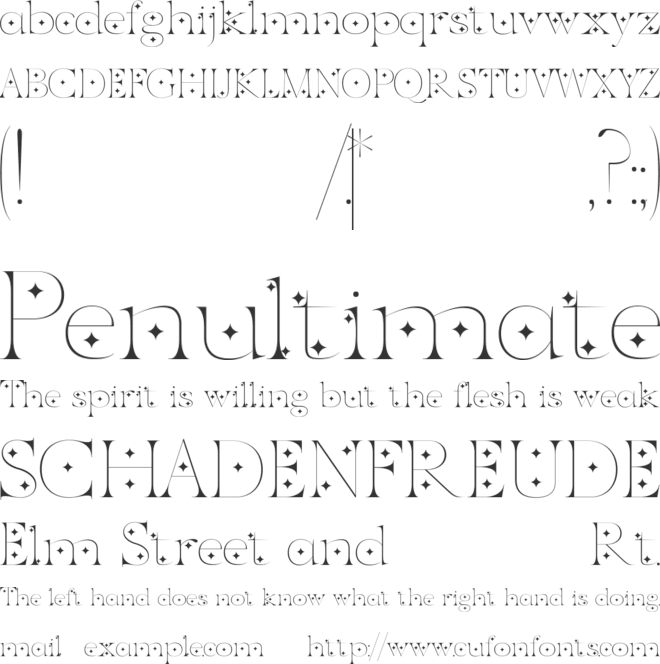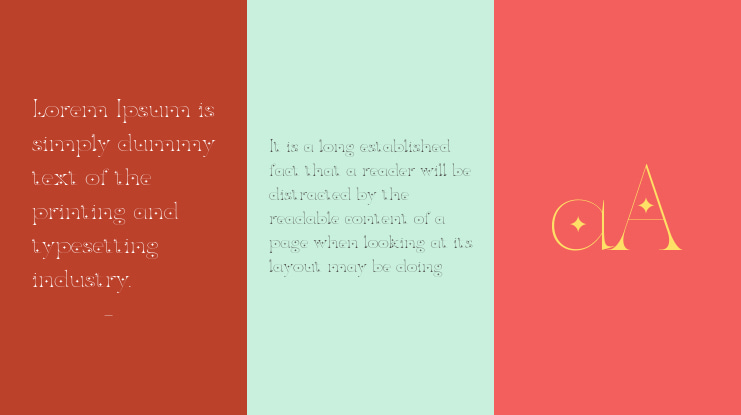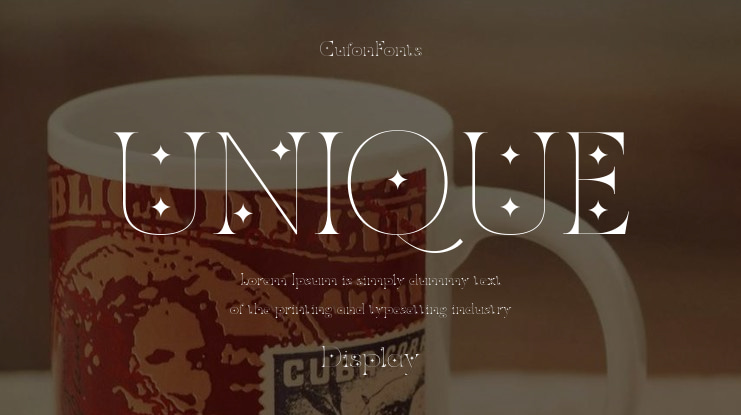
UNIQUE Font Family
Unique is a romantic serif with 290+ glyphs and multilingual support—ideal for dreamy branding, elegant packaging, and editorial charm.